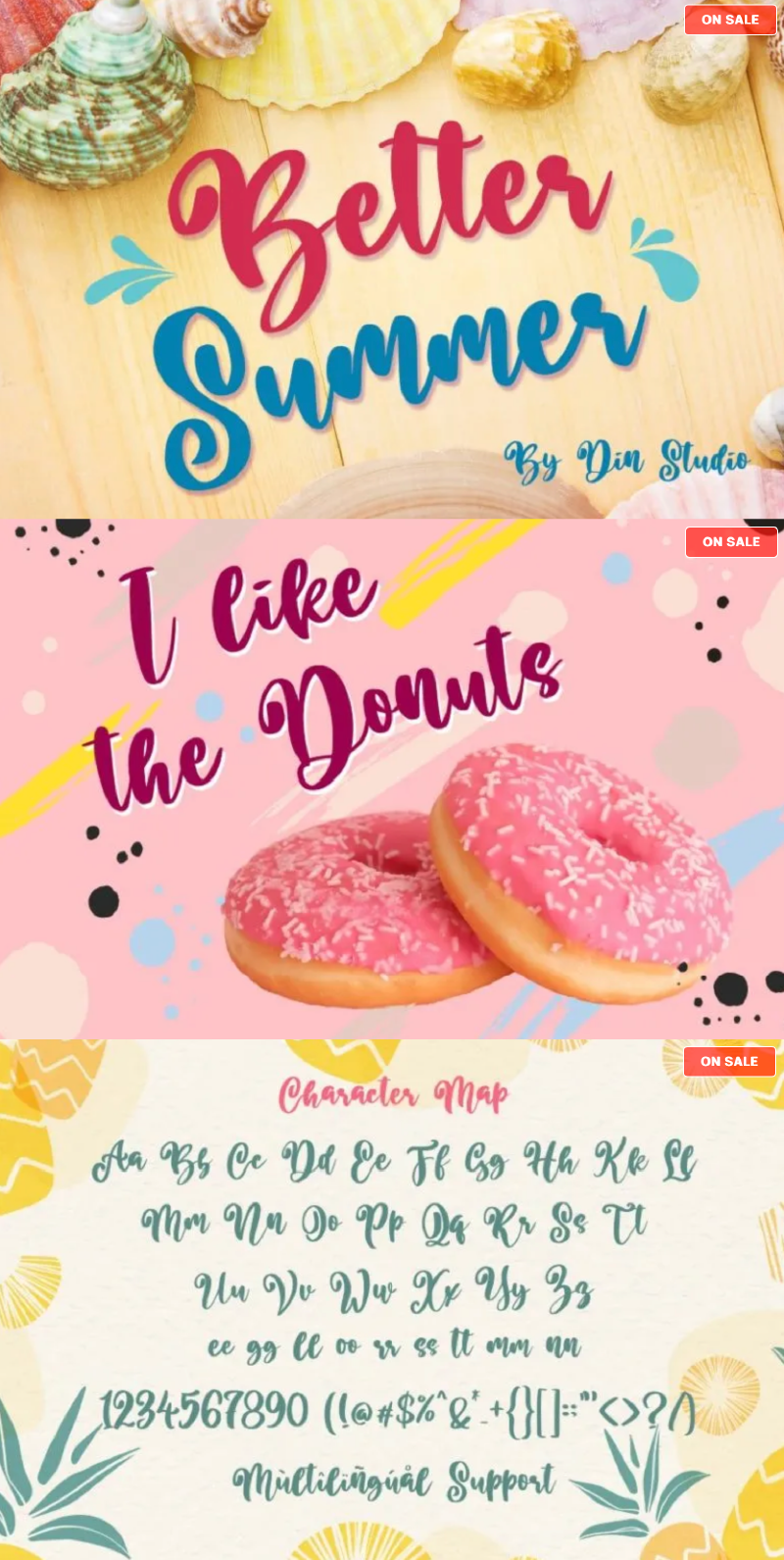
Better Summer Font
About Better Summer
Introducing a Better Summer Script Font. Made from a chic brush, it will make your design more beautiful. This script font is perfect for anything adventurous and direct. Every stroke and curve was created to entice happiness and elegance. A real head-turner for your presentation, designs, branding, quotes, invitation, website illustrations, and much more.
Our font always includes Multilingual Support to make your branding reach a global audience. Inspire your audience, clients, or guests with this beautiful, statement font. See the previews above to get some inspiration on how you can use them.
- Character Set A-z
- Numerals and Punctuation (OpenType Standard)
- Accents (Multilingual characters)
- Beautiful ligatures